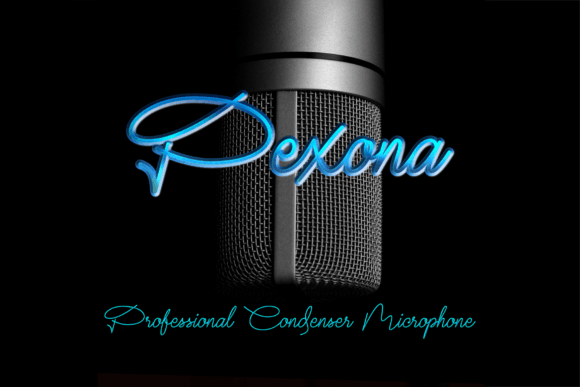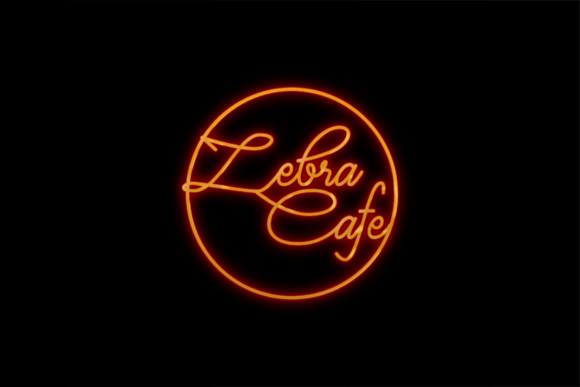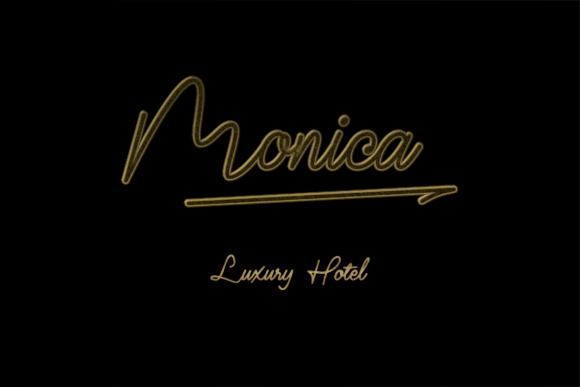
Introduction to Mr Dj Monoline Font
Imagine you’re sitting at your desk, surrounded by scattered papers, glue sticks, and a cup of steaming coffee. The creative juices are flowing, and you’re brainstorming ideas for your next design project. You need a font that’s going to make your signature stand out, or add a touch of elegance to a wedding invitation. That’s where the Mr Dj Monoline Font comes in – a beautifully crafted script typeface designed specifically for signature fonts.
As a designer, you know how crucial it is to have high-quality design resources at your fingertips. The Mr Dj Monoline Font is a valuable addition to your toolkit, offering a balanced thickness that makes it perfect for a variety of creative projects. With its PUA encoded features, you can access all glyphs and swashes effortlessly, giving you the freedom to experiment and push the boundaries of your design.
Key Features of Mr Dj Monoline Font
- High-quality design resource suitable for creative projects, including graphic design, digital art, and typography.
- Features a transparent background, making it easy to overlay on any image or design without visual clutter.
- Characterized by its clean and modern aesthetic, the Mr Dj Monoline Font is perfect for creating a professional and sleek look in any design project.
- Designed with a high resolution of 300 DPI, ensuring crisp and clear typography even at larger font sizes.
- Includes a range of weights and styles, allowing designers to experiment with different looks and feels for their creative project.
As a designer, I’m always on the lookout for unique and high-quality design resources. The Mr Dj Monoline Font caught my attention, and I decided to give it a try.
- ✨ It has a transparent background, allowing for seamless integration with any design element.
- ✨ The Mr Dj Monoline Font is highly versatile and can be used in a variety of design contexts, from logos to typography.
- ⚠️ The font is a monoline design, which can make it difficult to read in certain contexts, such as body text.
- ⚠️ The font is limited in its expressive range, making it less suitable for projects that require a lot of emphasis or drama.
Overall, I was impressed with the Mr Dj Monoline Font’s high quality and versatility. While it may have some limitations, it’s an excellent choice for designers who need a clean and simple font for their creative projects.
The Mr Dj Monoline Font is suitable for a wide range of creative projects, including logos, typography-based art, presentations, and documents. Its clean and modern design makes it perfect for any project that requires a professional and stylish look.